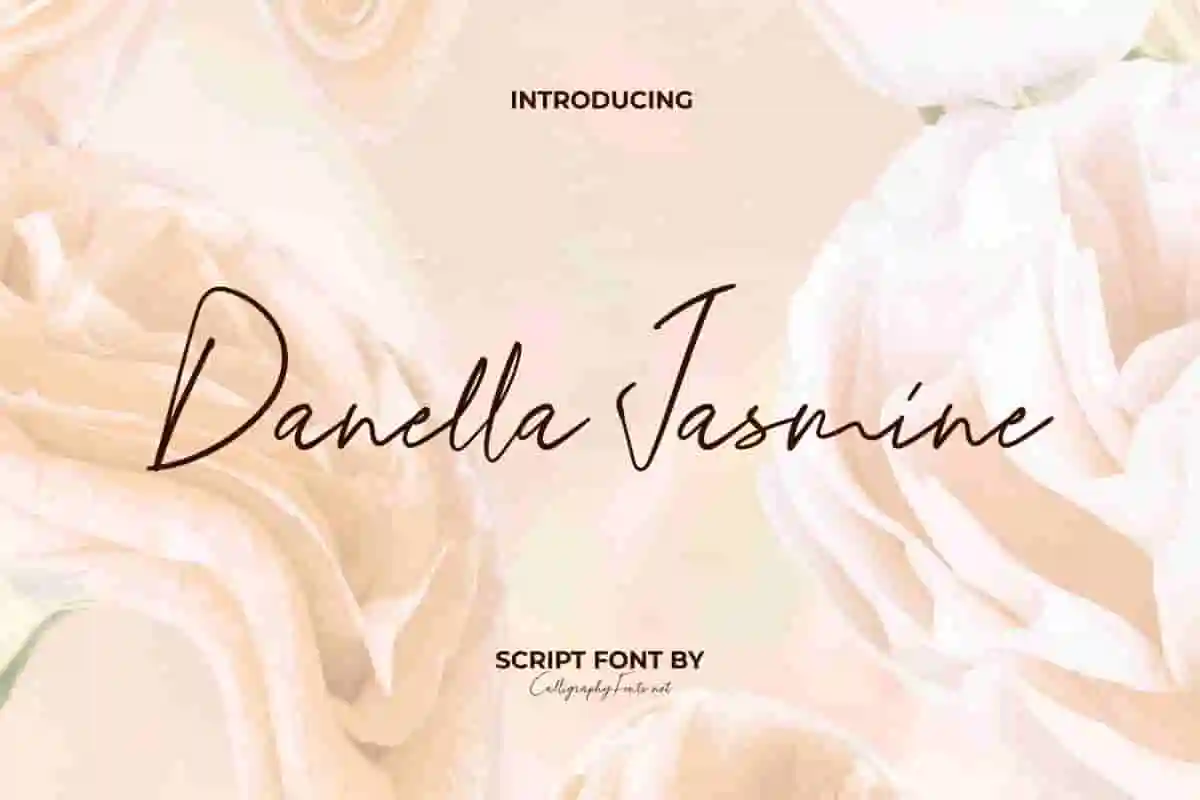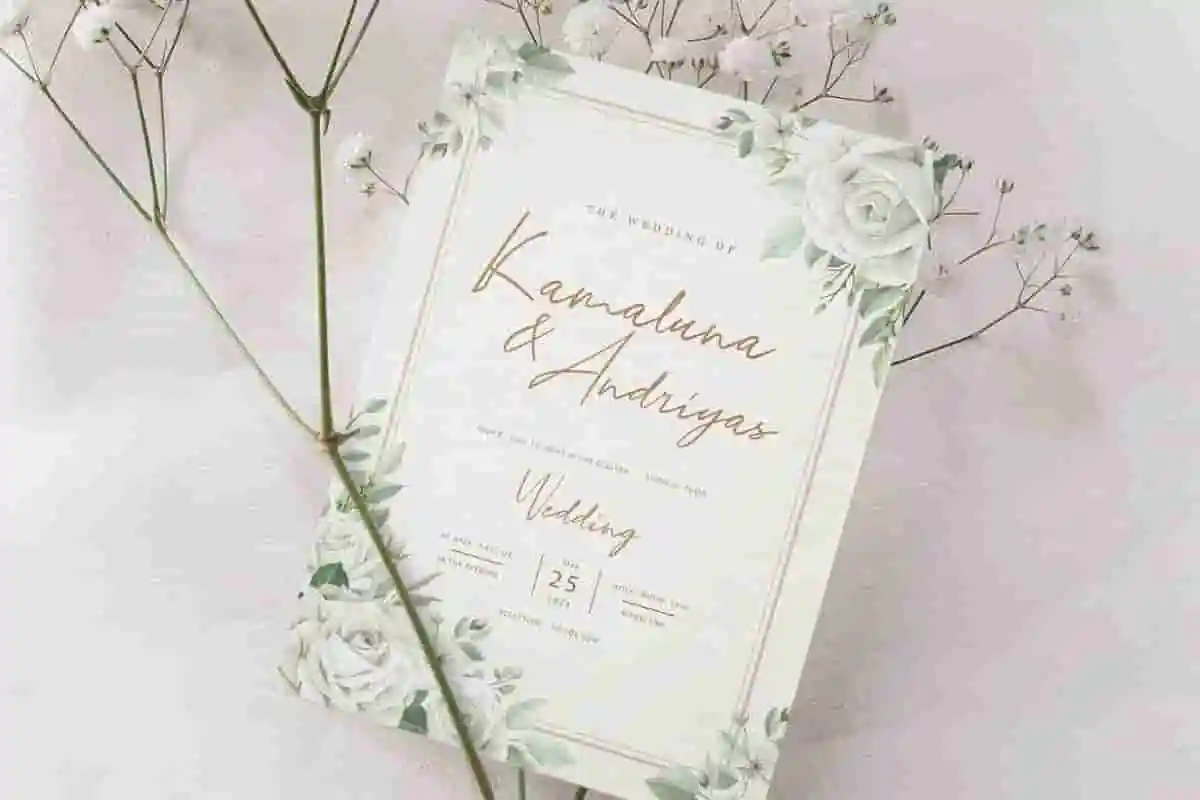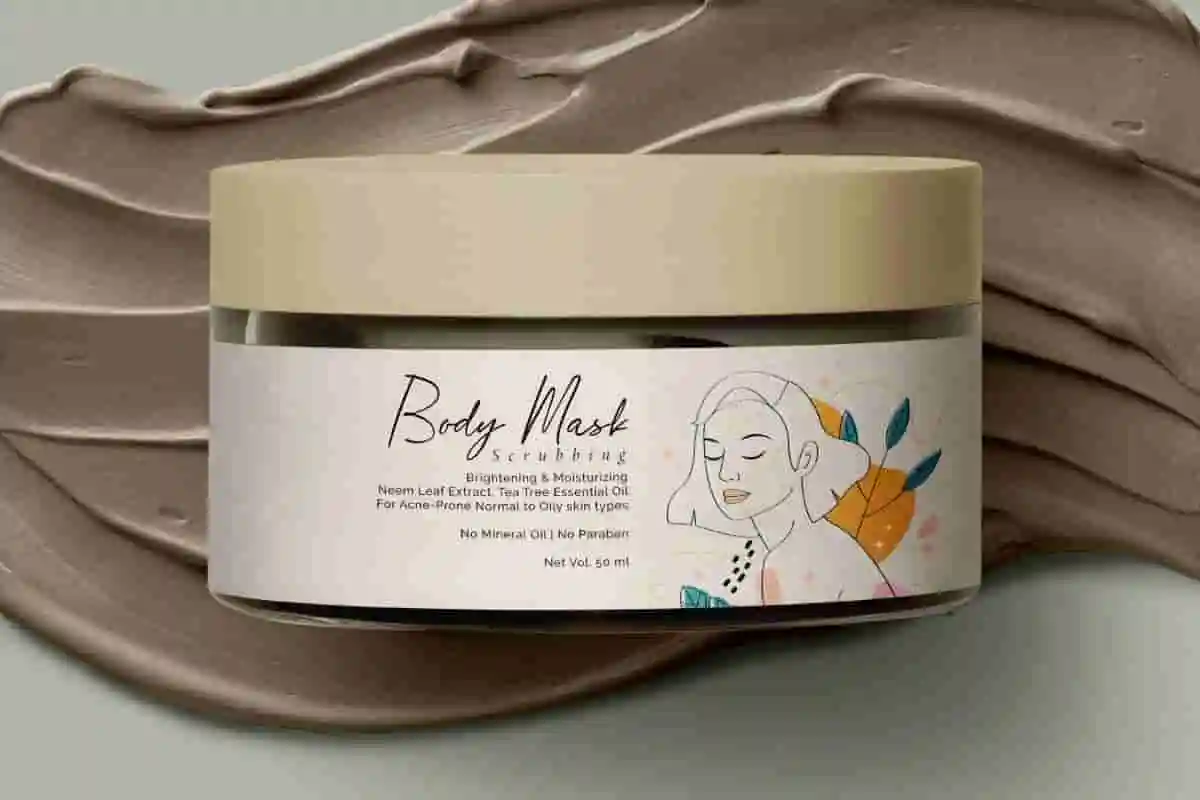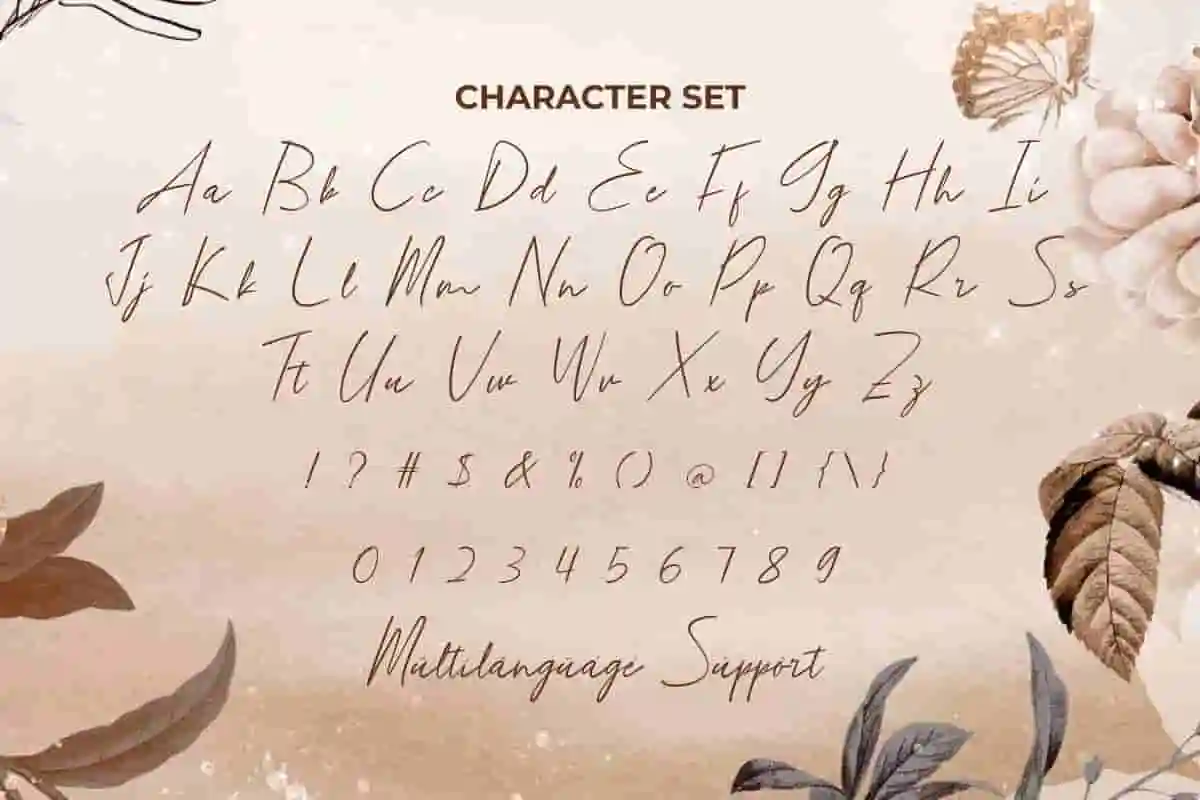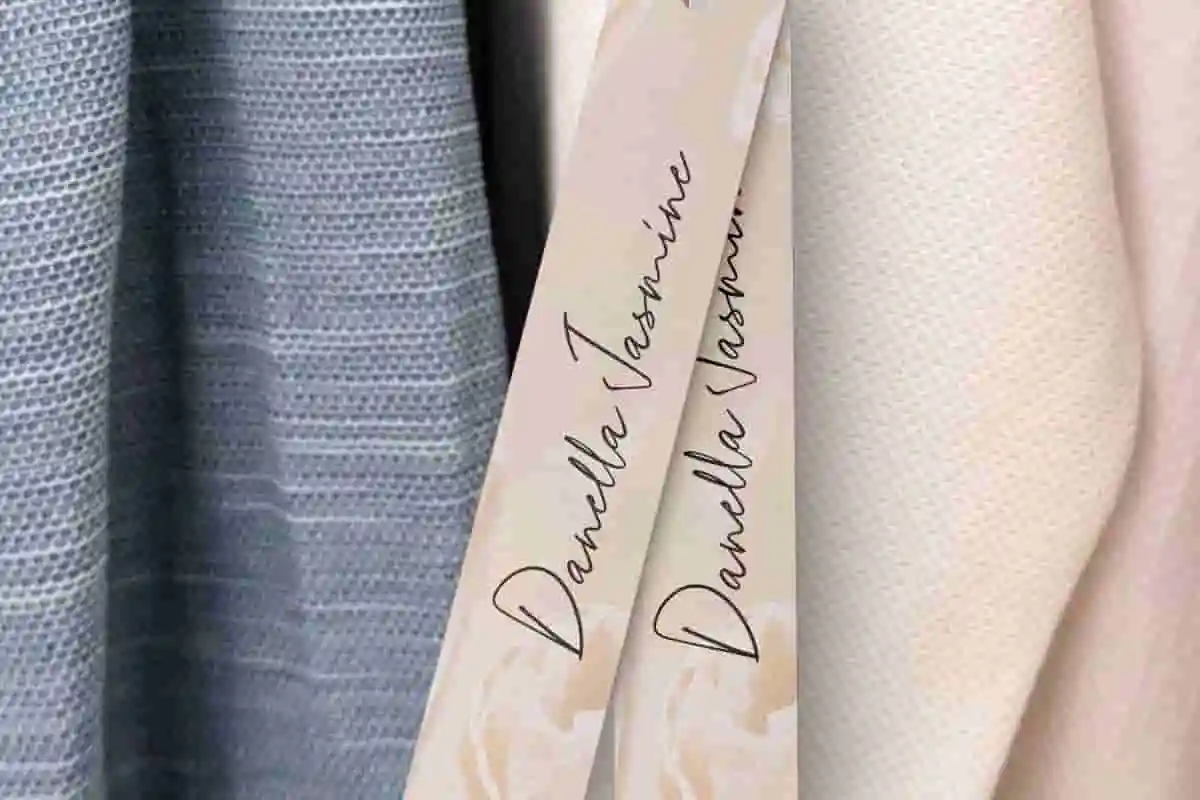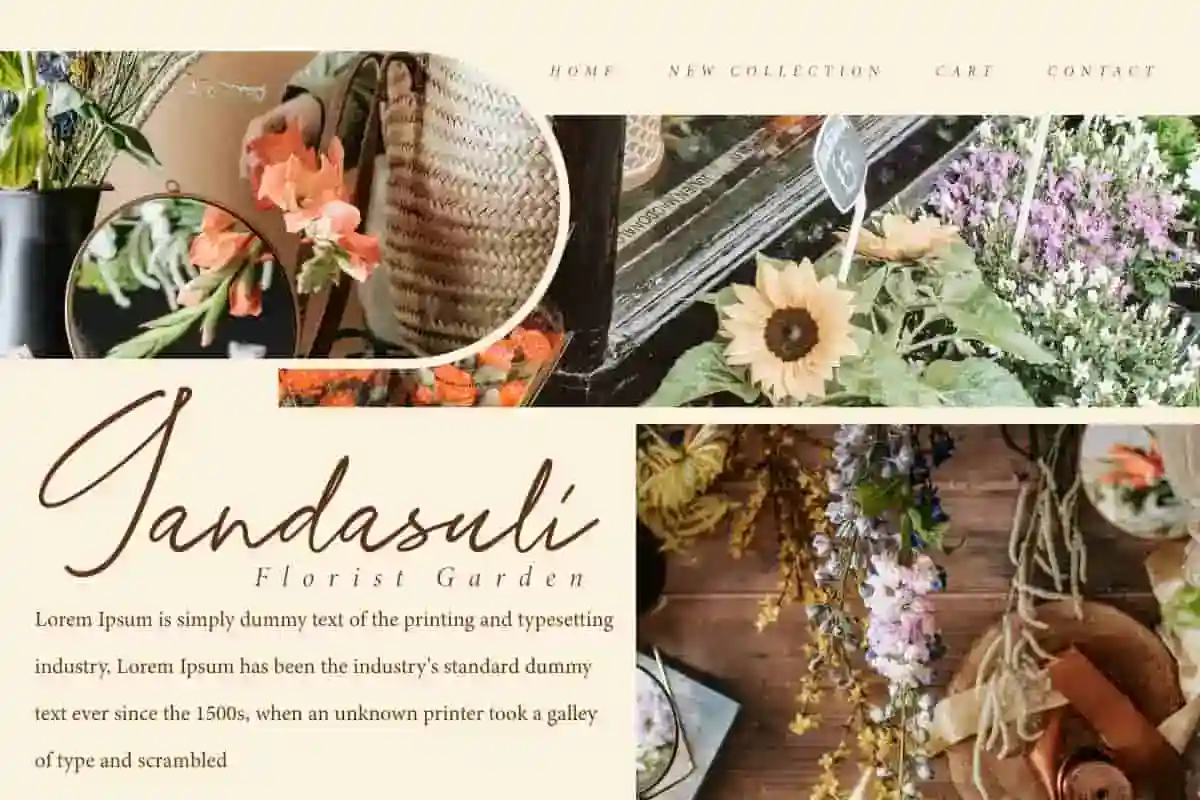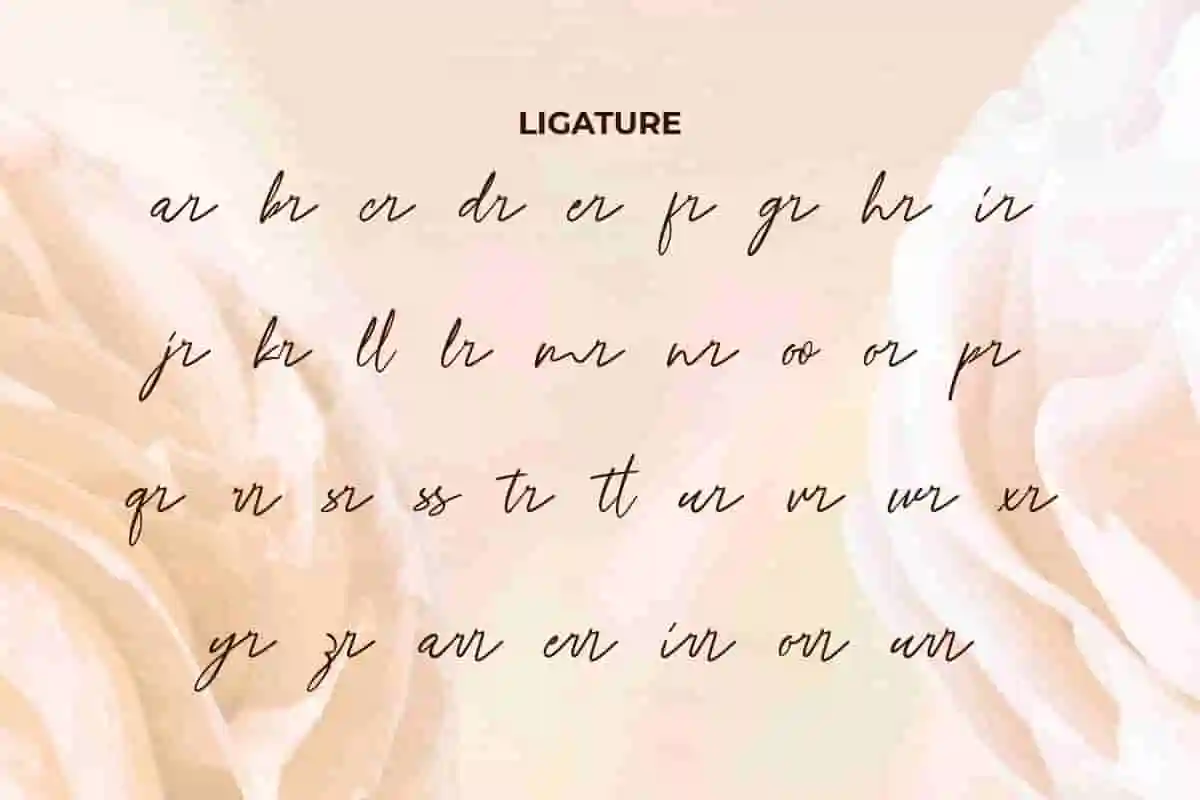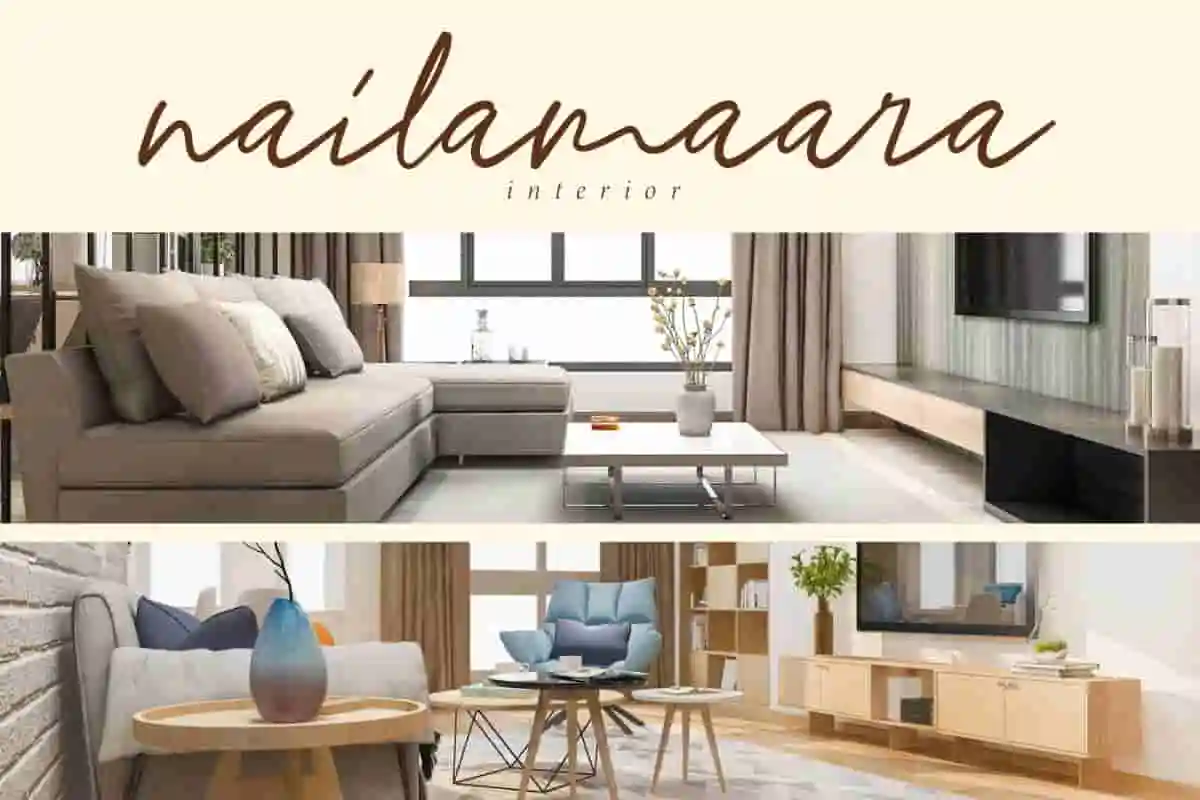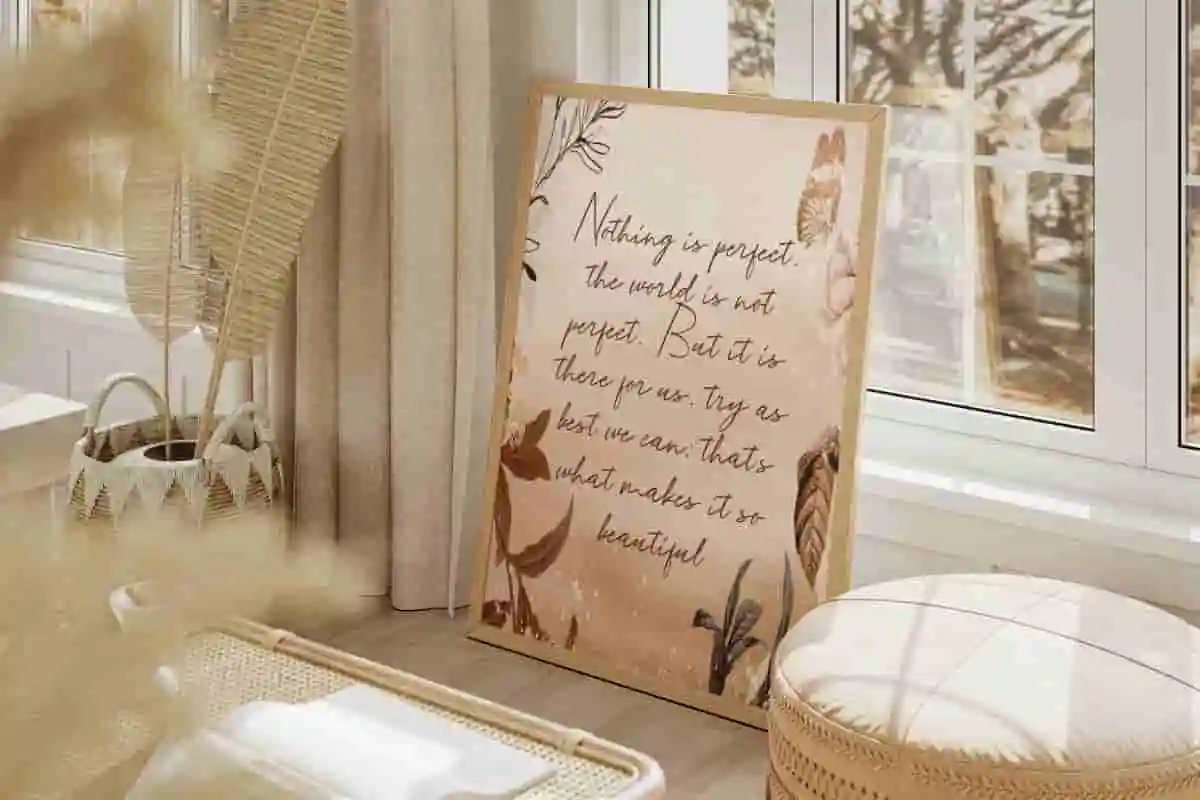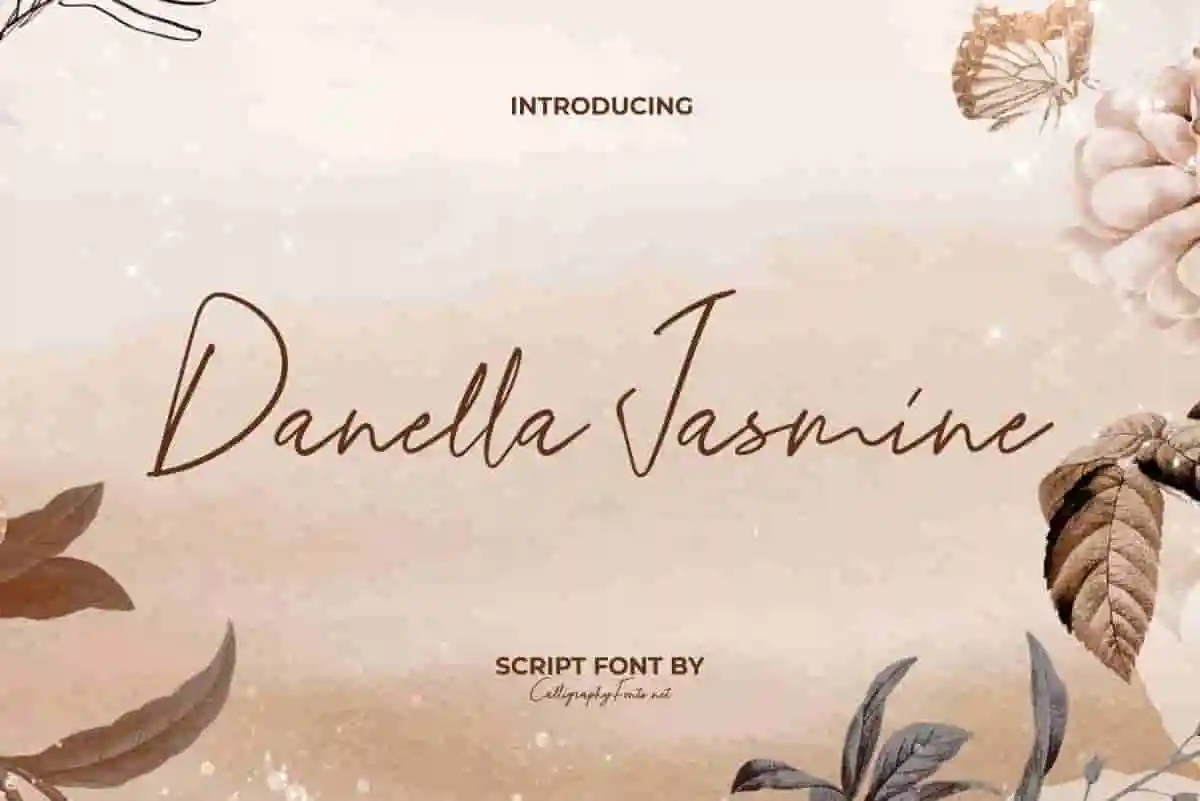
Danella Jasmine Font
Danella Jasmine Font is a modern and refined signature font charm beautifully crafted to be suitable for boutique, branding, fashion, florist, invitation, product design, skincare, social media posts, wedding, etc.
Danella Jasmine Font is a modern and stylish handwritten signature font that also comes with ligatures. Inspired by fabulous handwriting that is carefully crafted to present a clean and neat appearance. It can be used for advertising, bridal boutique, craft, cosmetic, event organizer, fashion, florist, home designer, home furniture, makeup artist, photography, skincare, salon, spa, and more.
Every design tells a story, and the right font gives it a voice. Danella Jasmine Handwriting Font is a modern script typeface that combines elegance, charm, and sophistication. Perfectly crafted with flowing curves and stylish strokes, this font is designed to bring a touch of class and romance to every project.
In today’s visual-first world, typography is more than text—it’s emotion. Danella Jasmine Handwriting Font allows you to express sophistication and romance in a way that feels personal yet professional. It’s the perfect choice for brands that want to inspire trust and beauty while leaving a lasting impression.
Danella Jasmine Handwriting Font is a delicate signature font with an elegant ligature based style that is so casual. This typeface will easily adapt to any part of your project. It is simpler and easier to read in longer texts. It is great for covers, blog, brochure, flyer, headers, heading, invitations, labels, logo, menu, mockup, product packaging, quotes, stationery, tags, template, title, website, and more.